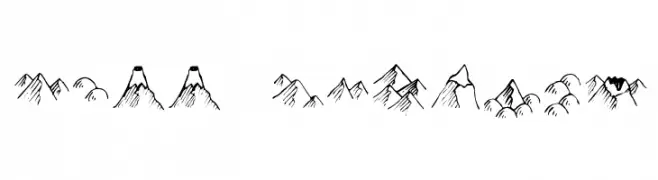
• Herkules
( Fonts by Dieter Steffmann )
A bold, playful font with a hand-drawn, whimsical style.
• Herkules Contour
A bold, contour-style font with thick outlines and a playful, assertive presence.
• Herkules Shadow
A bold, playful font with a shadow effect, perfect for eye-catching designs.
• Hero Of Fools
( Fonts by Jacob Fisher - www.pizzadude.dk )
A playful, hand-drawn font with a whimsical and cartoonish style.
• Herr Von Muellerhoff Regular
An elegant, cursive script font with flowing, decorative characters.
• HerrVonMuellerhoff-Regular
An elegant, cursive script font with flowing, interconnected characters.
• HeyValentine
• HierobatsSketches
Hand-drawn hieroglyphic-inspired decorative font with sketchy lines.
• Hill Country
( Fonts by Cumberland Fontworks - http://www222.pair.com/sjohn/fonts.htm - S. John Ross )
• Hingehudelt
A whimsical, hand-drawn font with irregular, playful strokes.